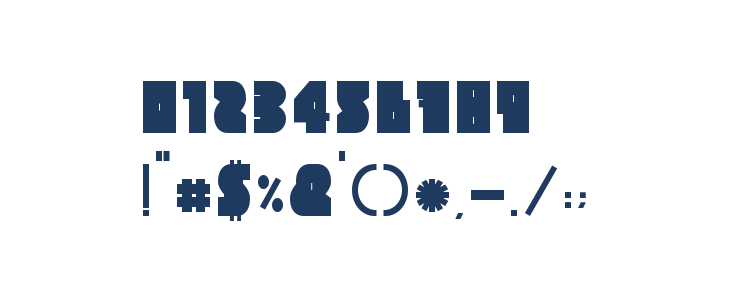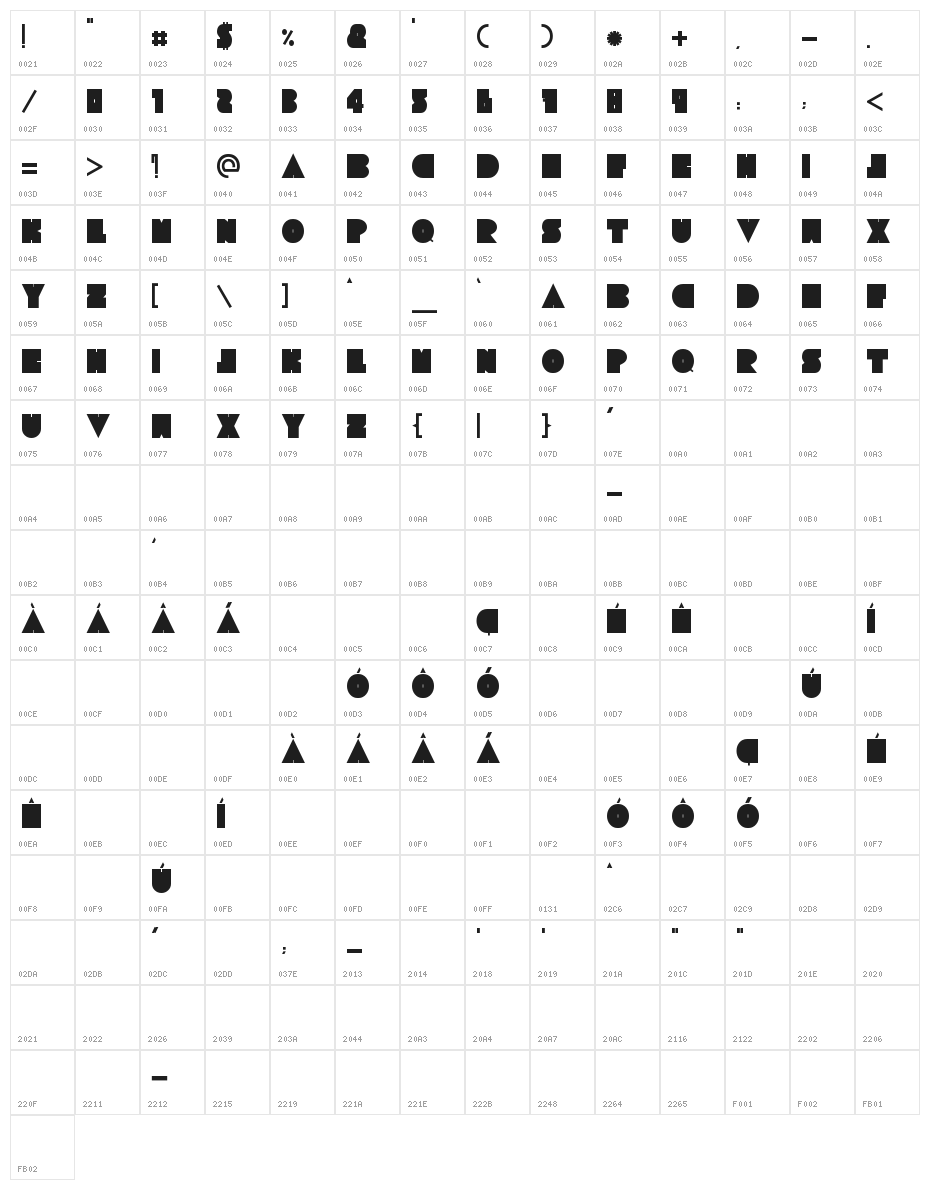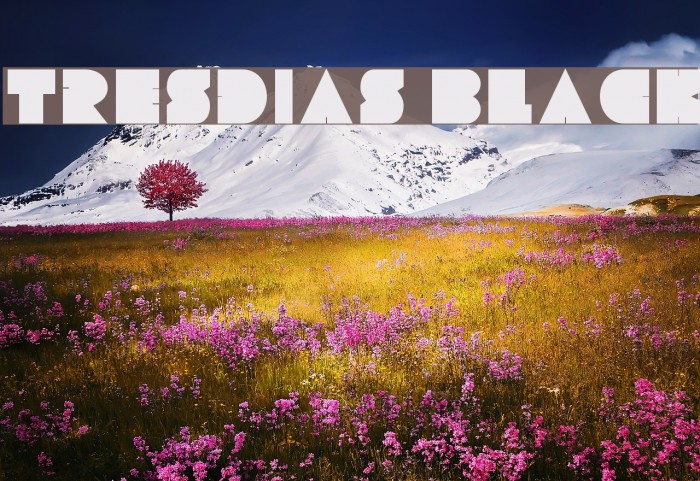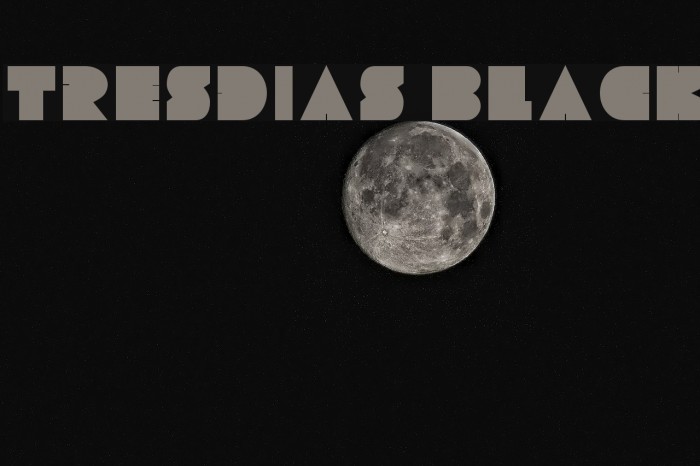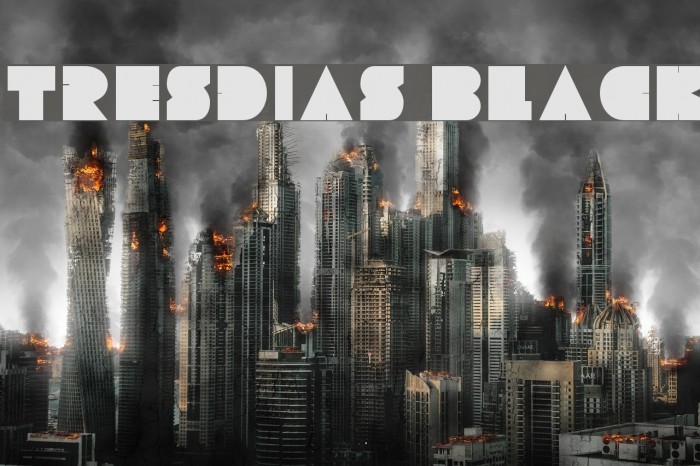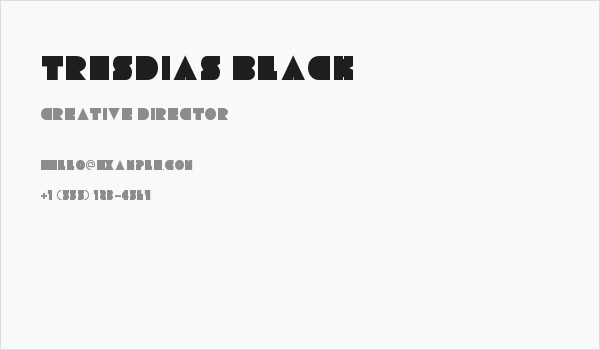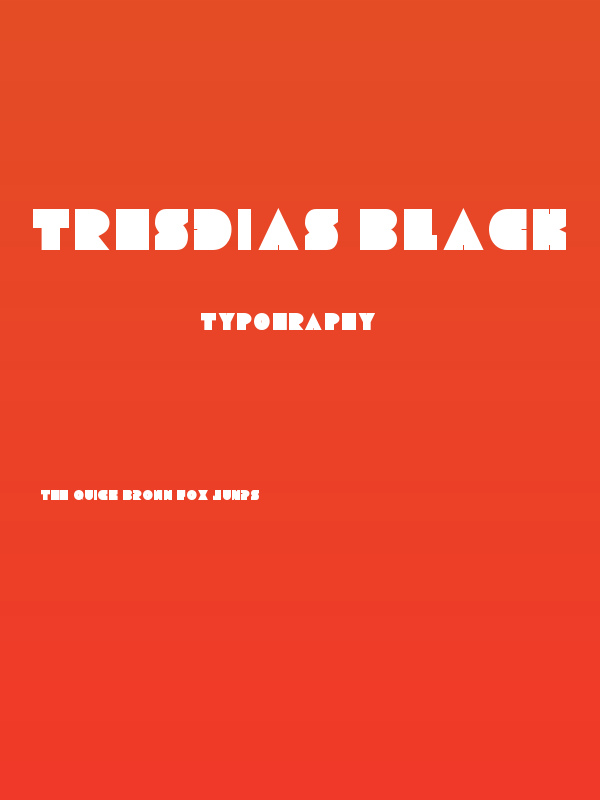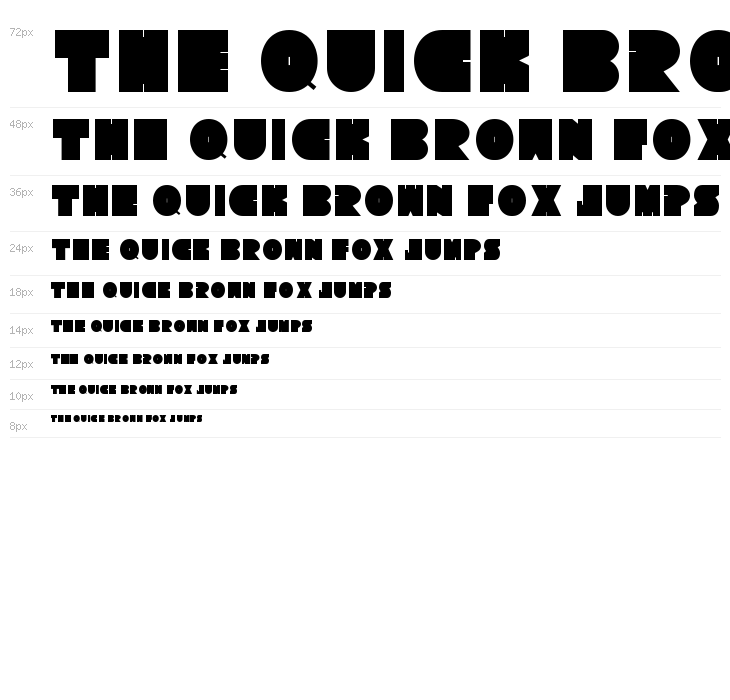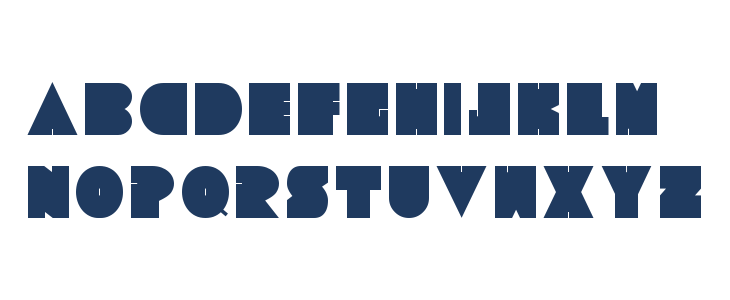
Tresdias Black Font
Tresdias Black Description
This font features a bold and geometric design with strong, block-like characters. The uppercase and lowercase letters maintain a consistent width, creating a uniform appearance. The numbers are similarly bold, with a distinct, angular style that complements the letters. Special characters are designed with the same geometric precision, adding to the cohesive look. The overall aesthetic is modern and impactful, making it suitable for attention-grabbing designs.
| Proposed Projects | Ideal for posters, headlines, logos, and branding materials that require a strong visual presence. |